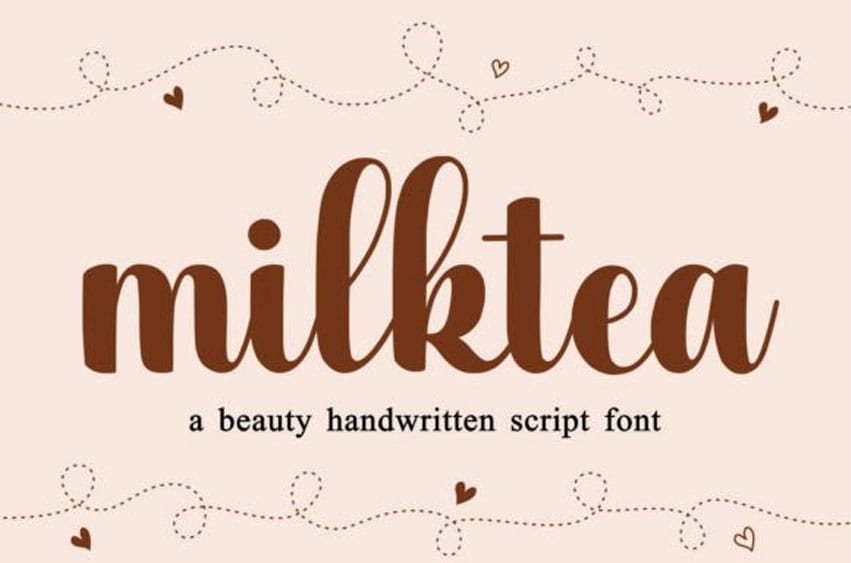
Milktea Font
Milktea Font a beautiful and elegant typeface perfect for adding a soft touch to your designs.
With its smooth curves and unique style, this font is versatile and can be used for various projects, from wedding invitations to branding materials.